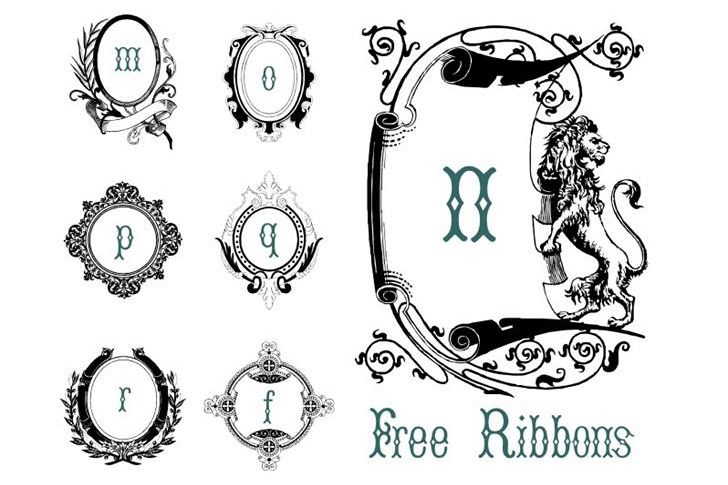
Free Ribbons
FreeRibbons
a collection of vintage ribbons and envolving frames and illustrations... this is the comercial licenced version of Intellecta's FreeRibbons apreciated font, ready to use